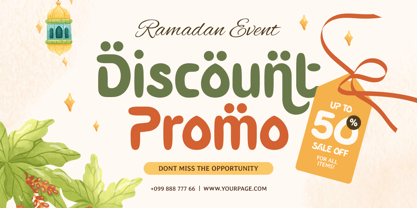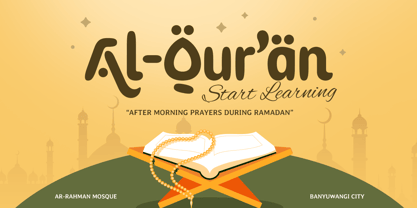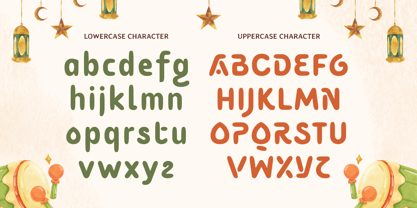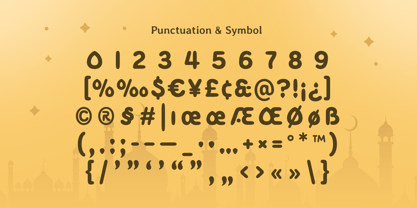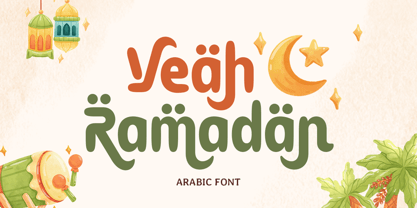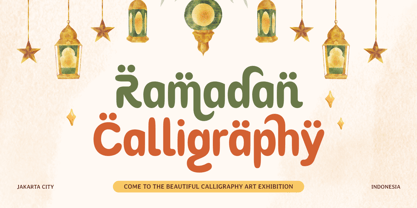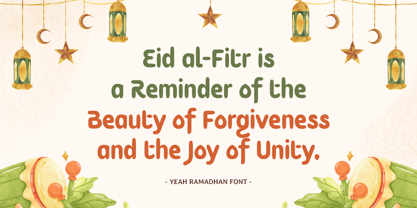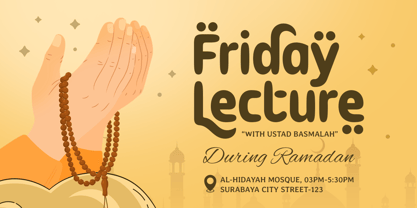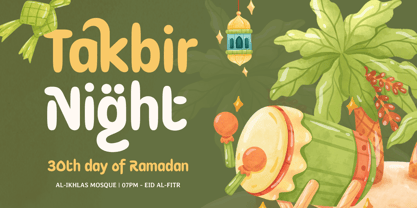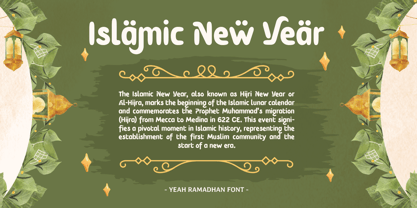
Yeah Ramadan
by Sensatype Studio
The Yeah Ramadan Font Family was designed by Zamroni Hamzah and published by Sensatype Studio. Yeah Ramadan contains 1 styles. More about this family
Yeah Ramadan - Arabic Font
"Celebrate the spirit of Ramadan with Yeah Ramadan, a festive Arabic font combining tradition and creativity for stunning designs."
Yeah Ramadan is a delightful Arabic font designed to infuse your projects with the charm and essence of the holy month. Its intricate yet playful design makes it perfect for Ramadan and Eid-themed branding, greeting cards, posters, and social media graphics.
Drawing inspiration from the beauty of Arabic calligraphy and the joyous atmosphere of Ramadan, Yeah Ramadan offers a blend of authenticity and modern flair. This font is tailored for designers seeking to create festive, welcoming, and culturally rich visuals. Whether you're designing banners, invitations, or digital ads, Yeah Ramadan ensures your creations radiate warmth and tradition.
Enrich your design toolkit with Yeah Ramadan, an Arabic font crafted to bring your festive projects to life. With its versatile features, it’s perfect for both personal and professional use.
Yeah Ramadan Arabic Font Features:
• Festive and Authentic Arabic Typography
• Punctuation, Numbers, and Symbols
• Uppercase and Lowercase
• Opentype Features
Multilingual Characters available for:
Designers: Zamroni Hamzah
Foundry: Sensatype Studio